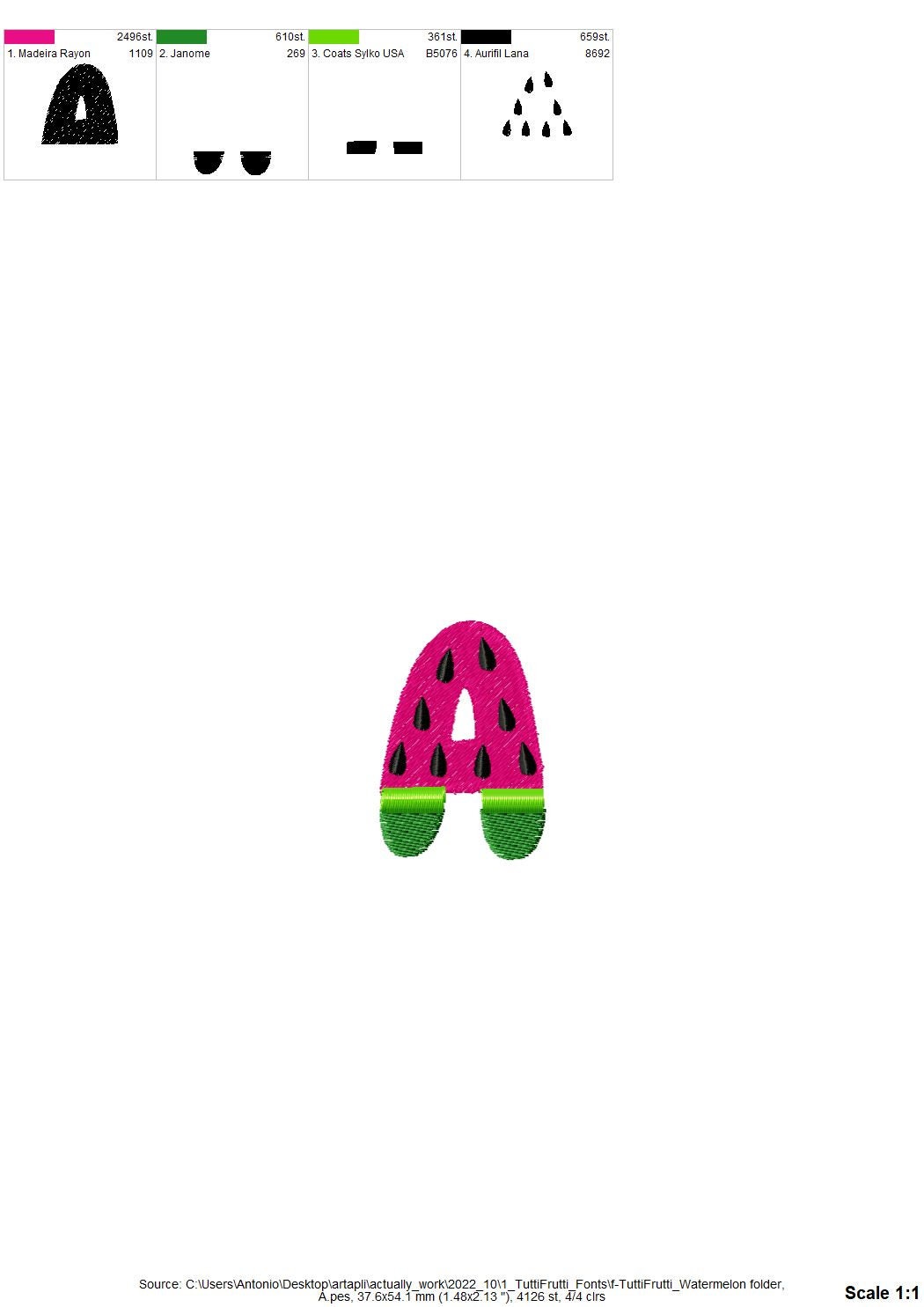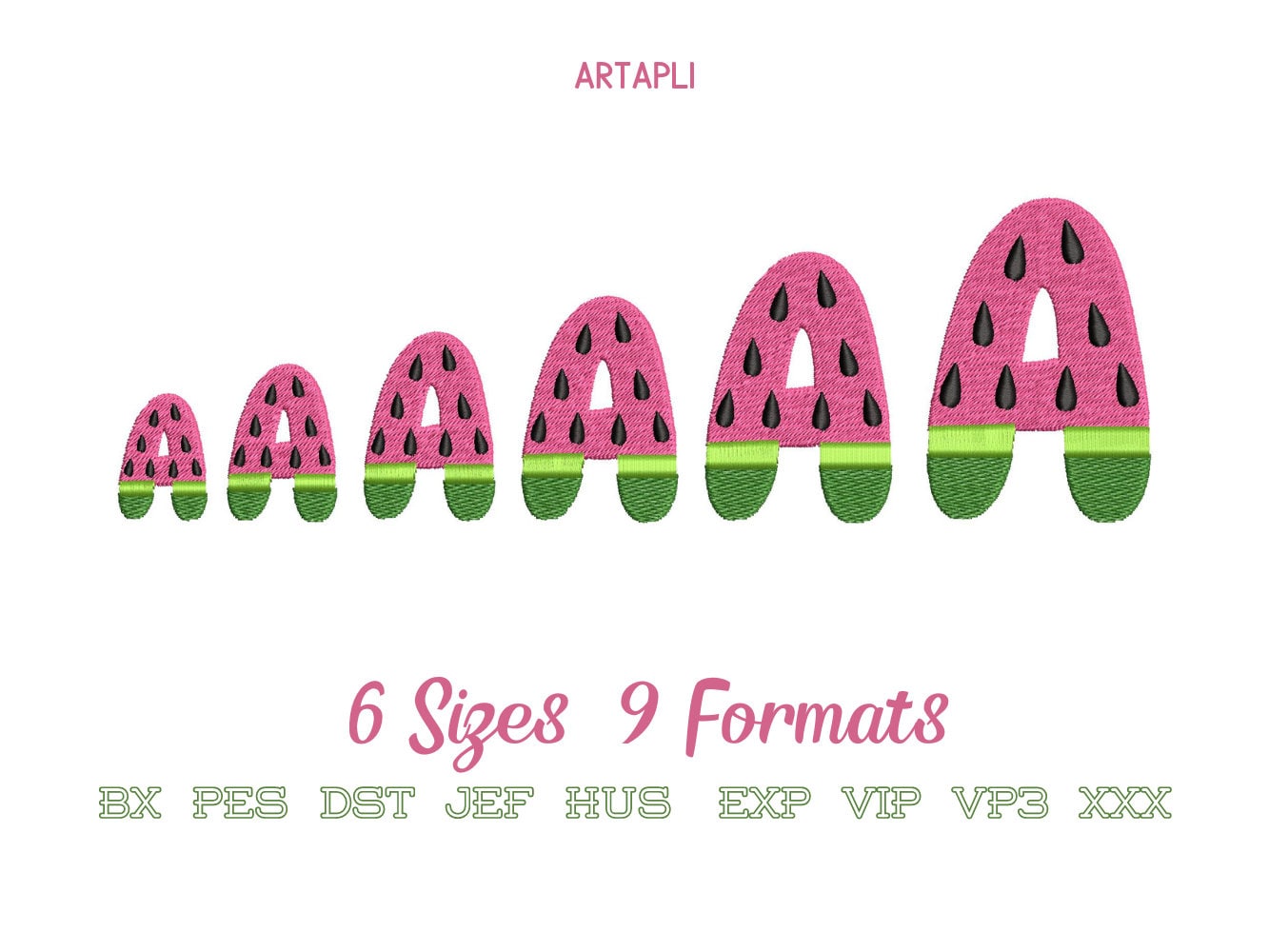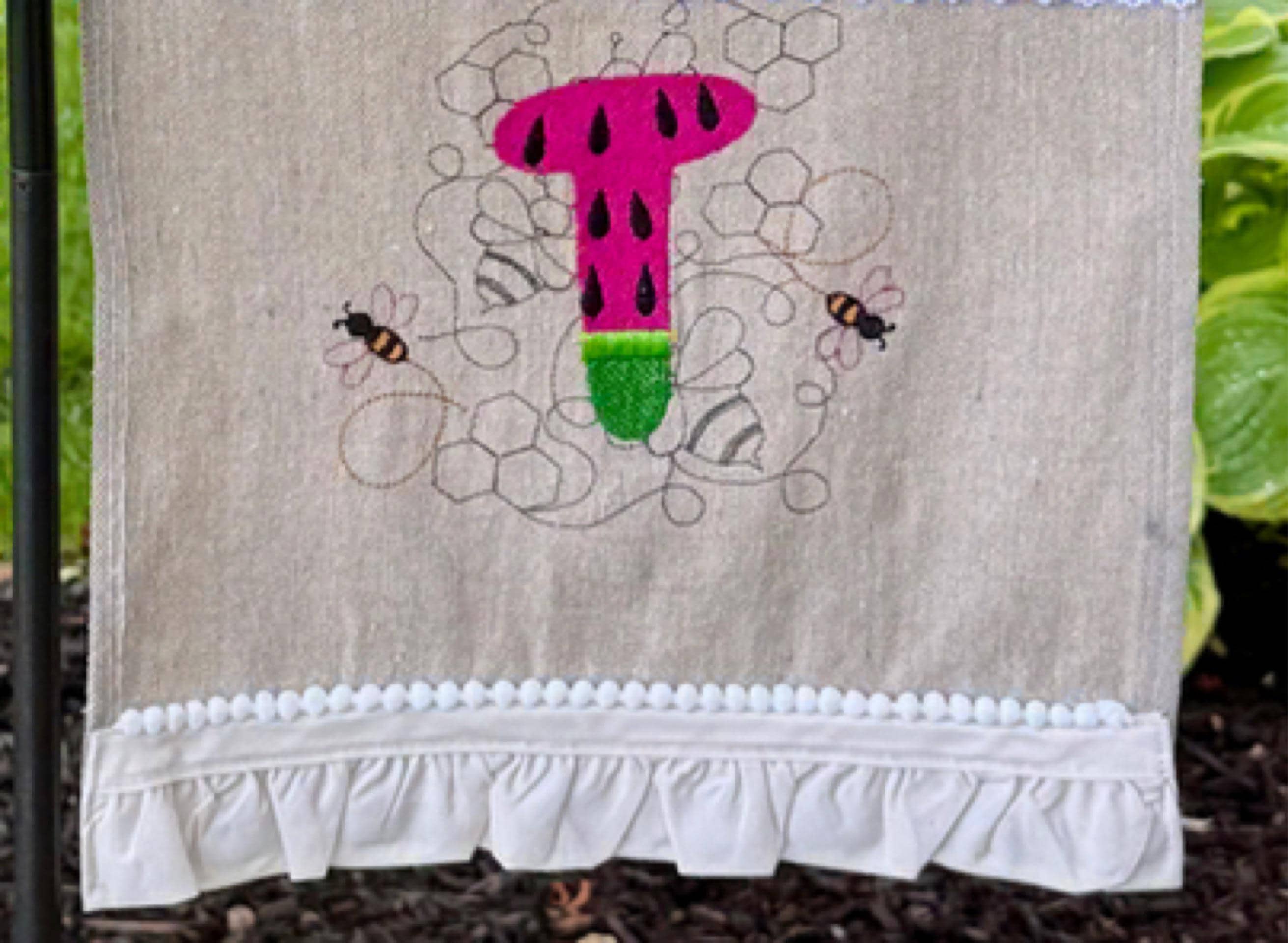
Tutti Frutti Watermelon fruit FONT machine embroidery designs in assorted sizes funny alphabet letters A-Z kids name monogram, BX included
Whole alphabet A-Z capital letters.